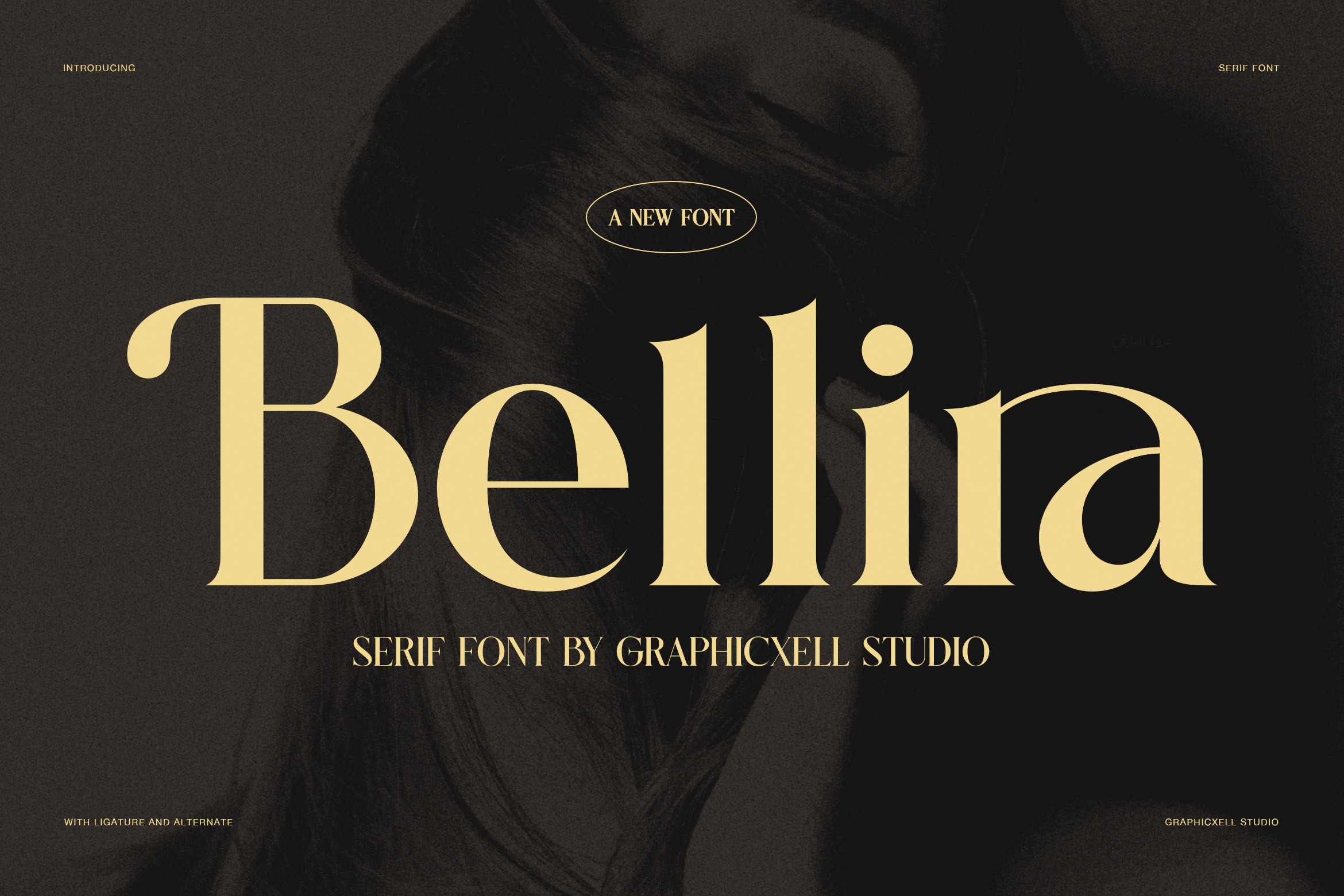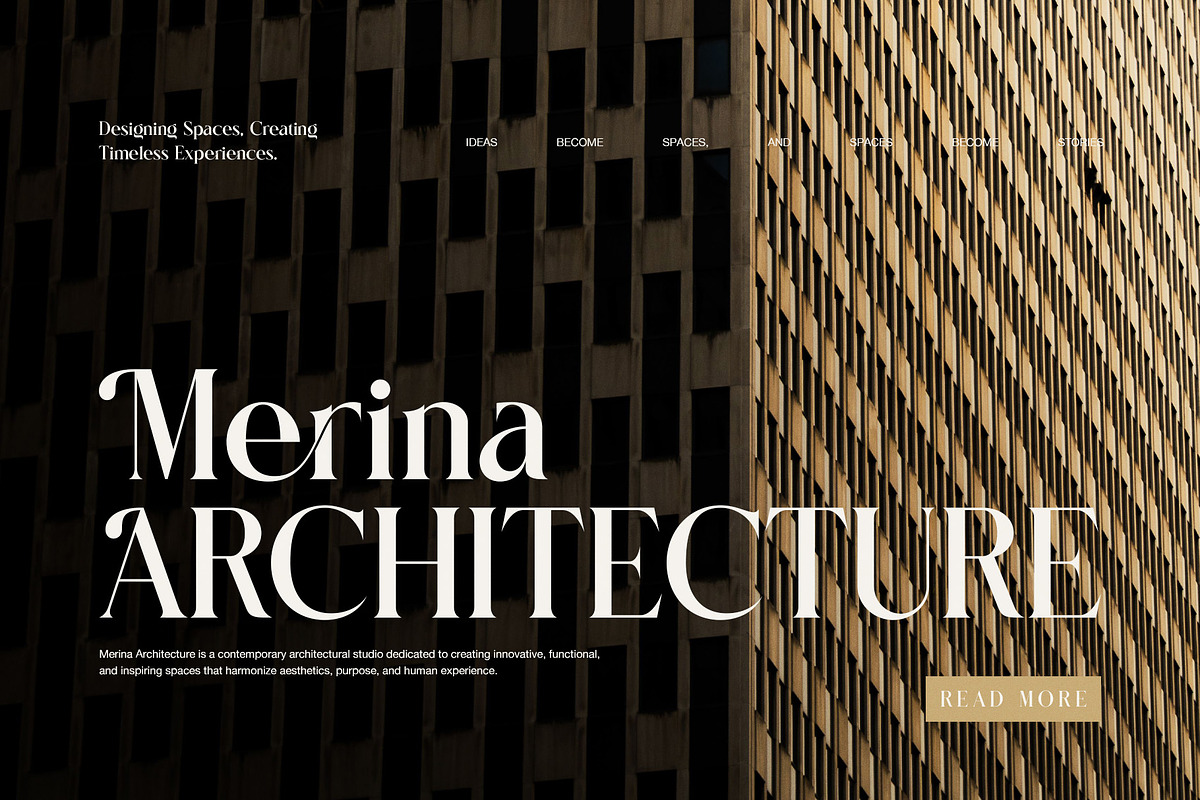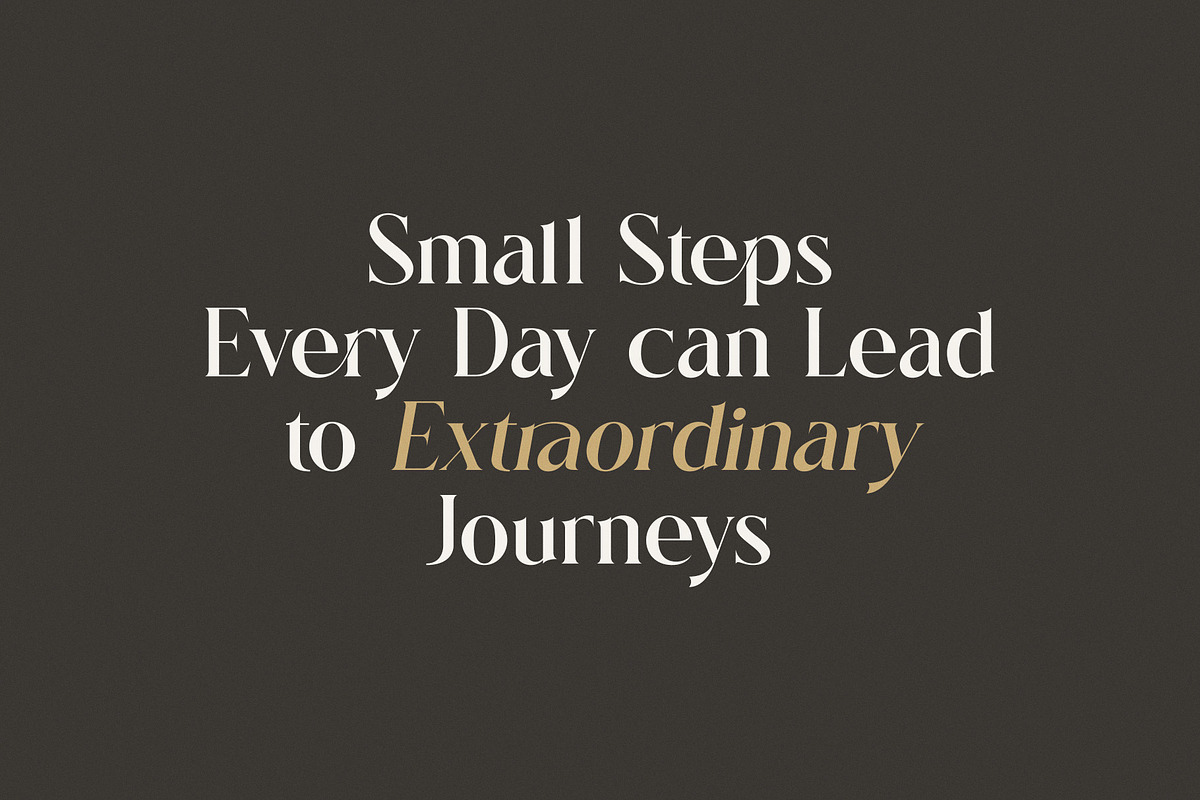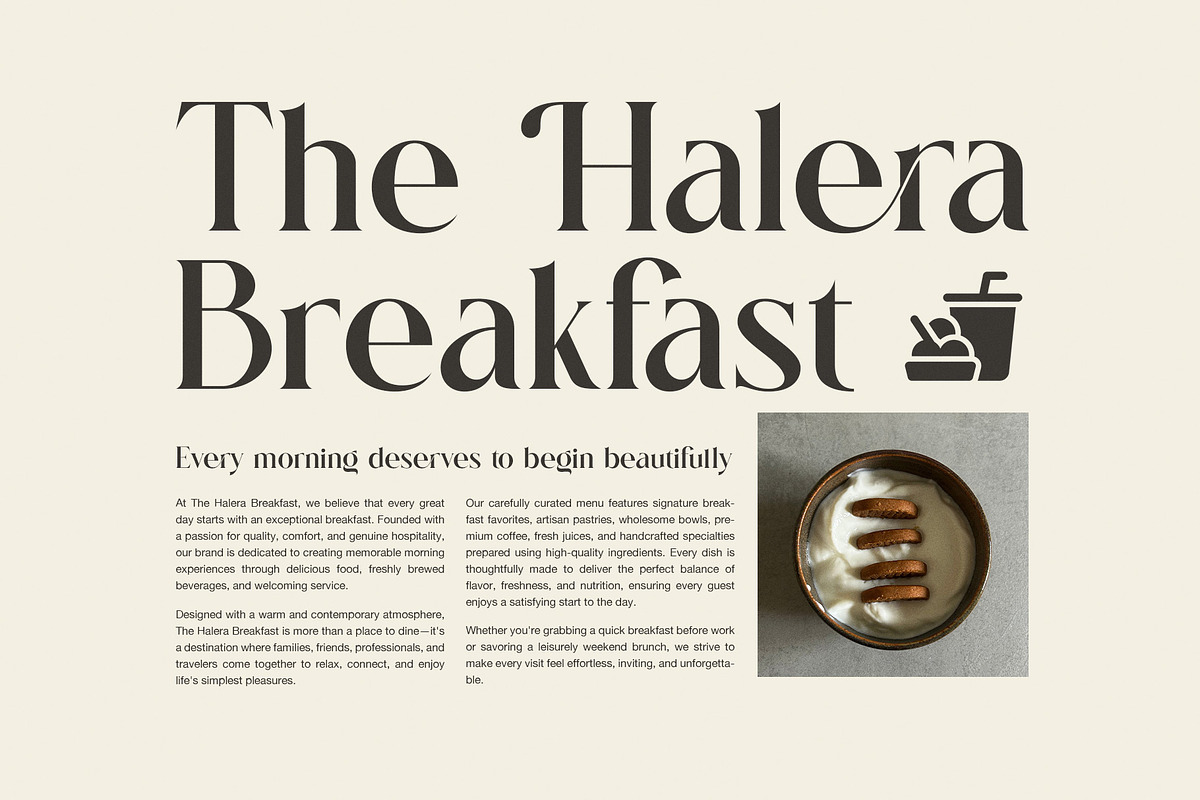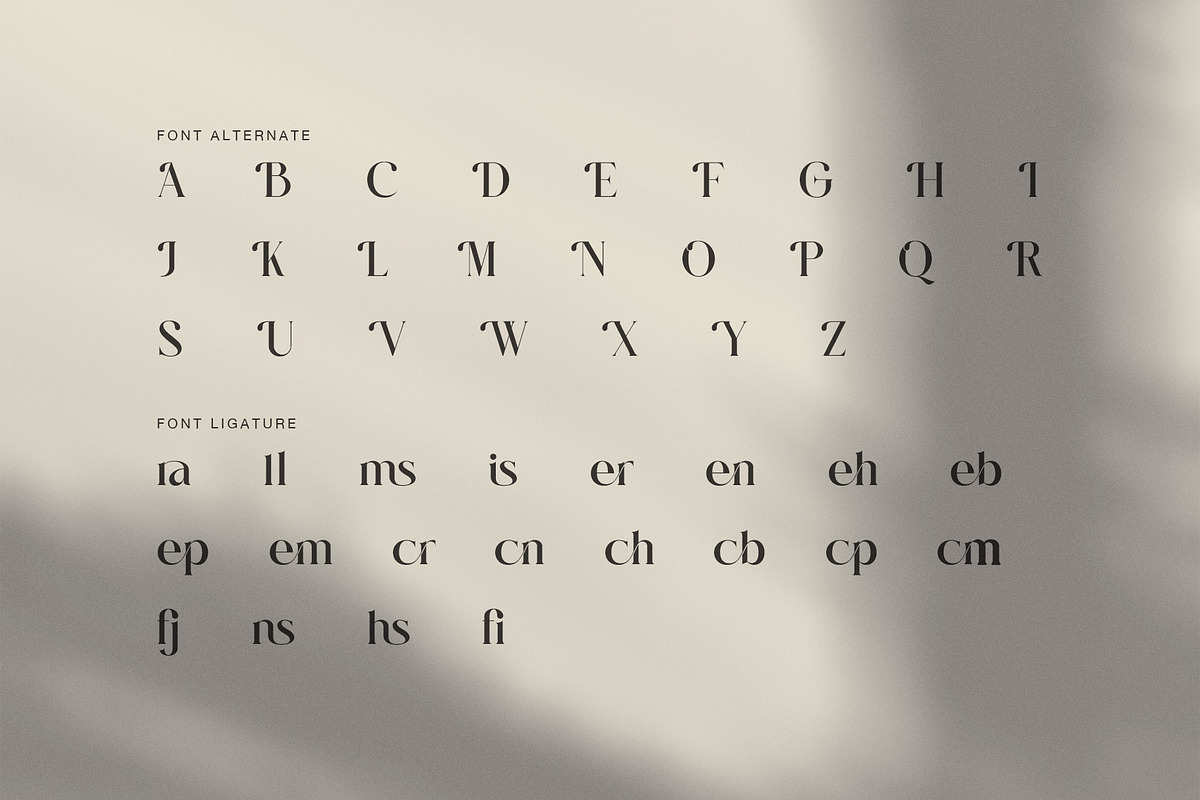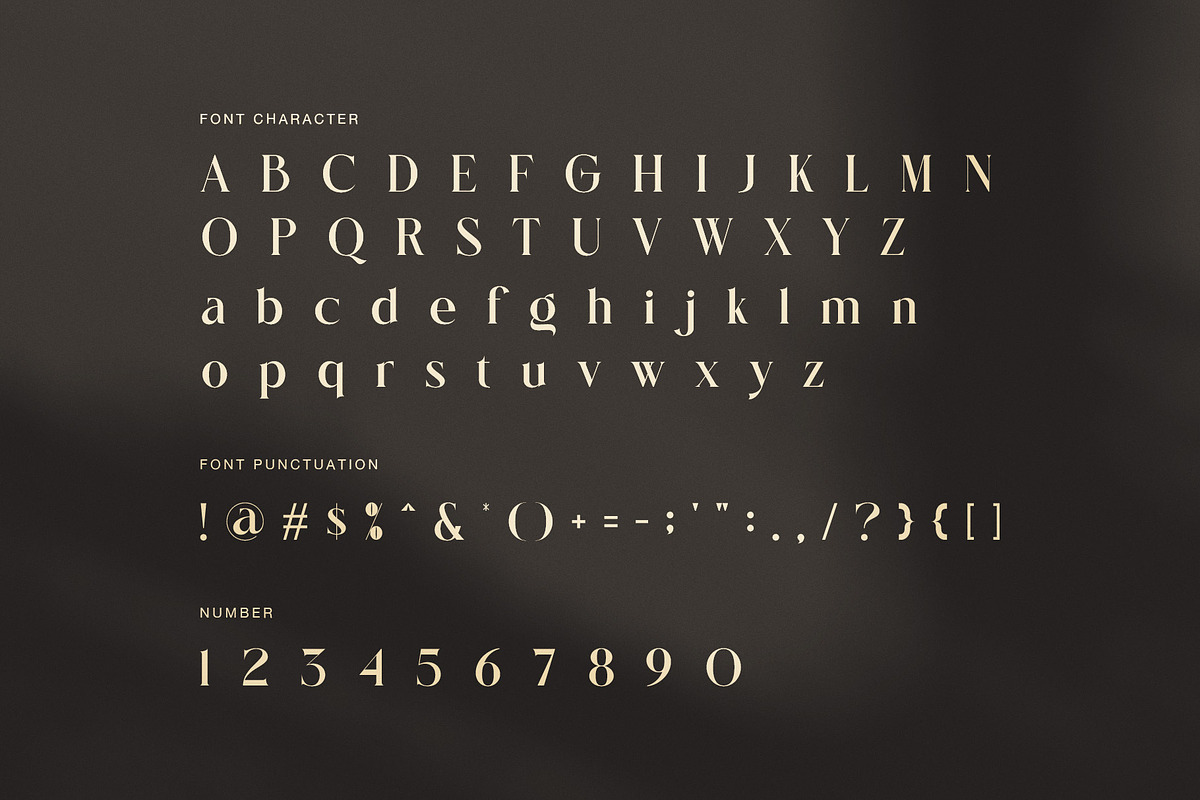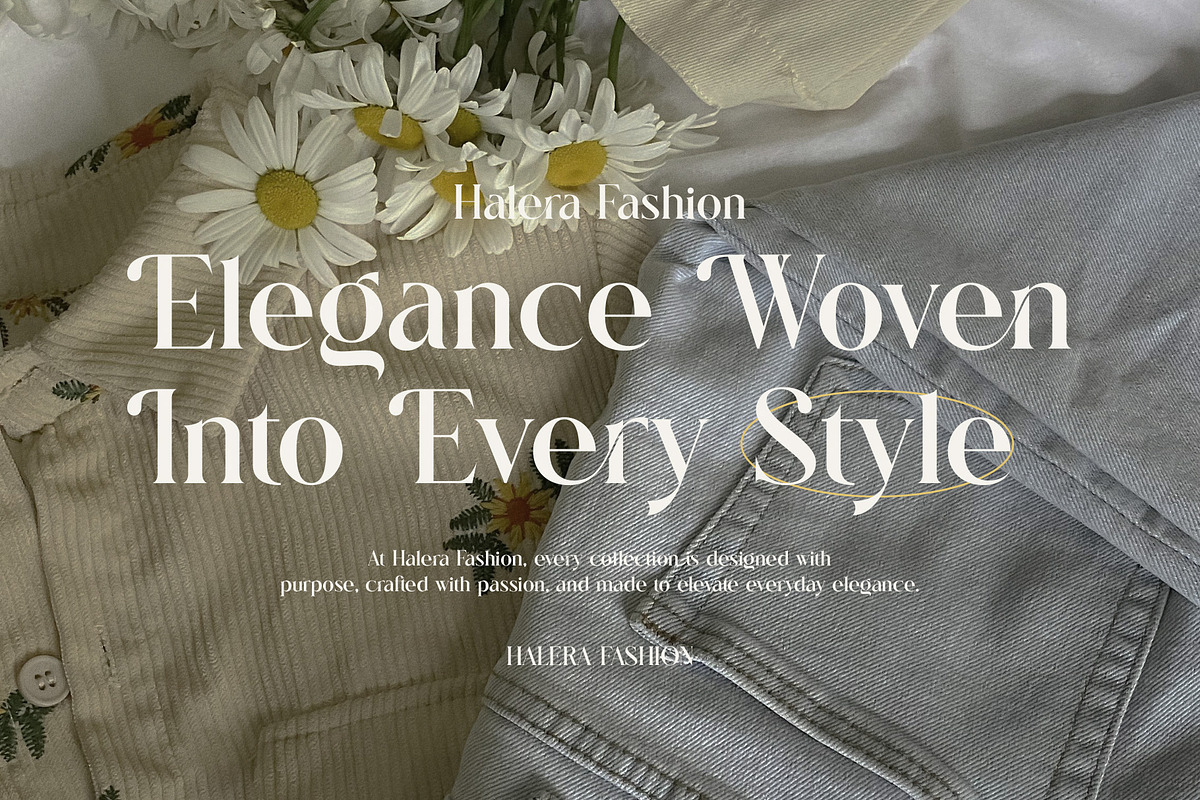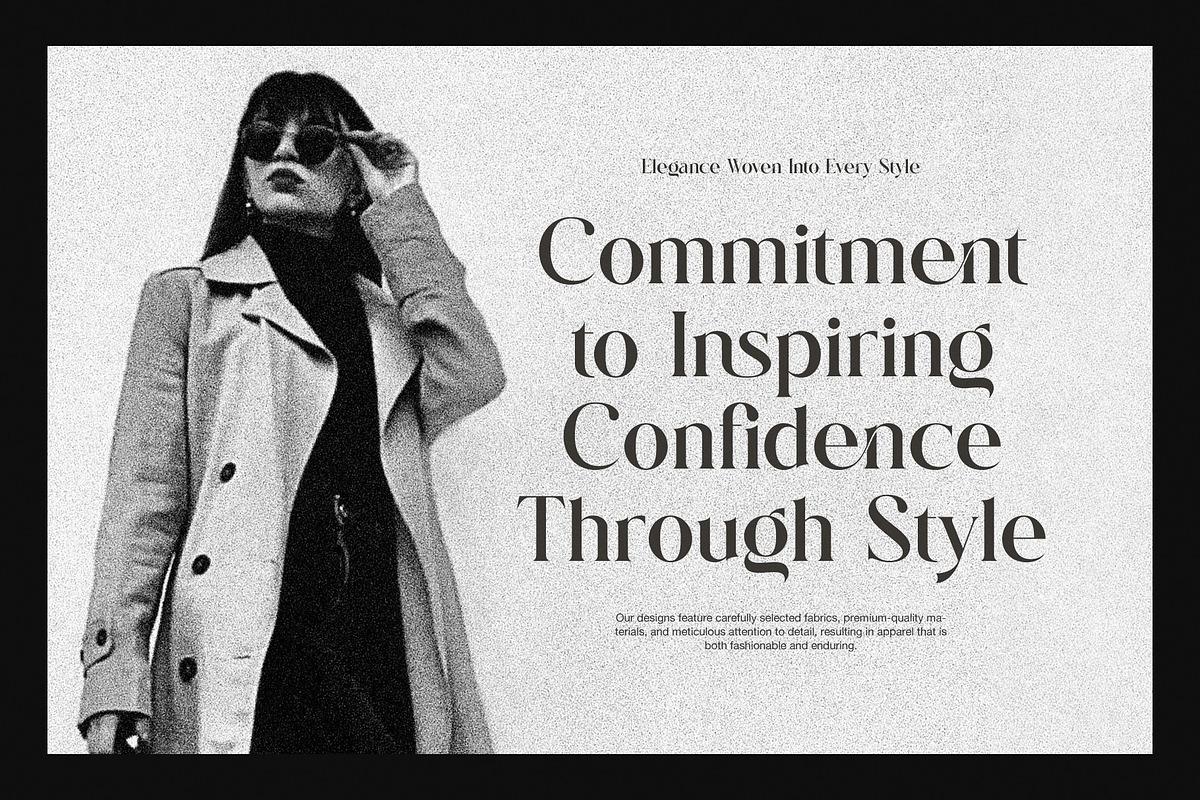
Bellira Elegant Serif Font
Bellira is an elegant serif font made for brands, layouts, and designs that need a refined and stylish look. With high contrast strokes, smooth curves, sharp serifs, and fine details, this typeface gives a polished sense of fashion and class. It feels modern, yet timeless. Therefore, Bellira works well when you want a strong headline with a soft and graceful feel.
The letter shapes are made for display use, so they look best at larger sizes. Moreover, the stroke mix gives each word a rich visual rhythm. The uppercase letters add polish, while the lowercase set keeps the style warm and easy to use. In addition, Bellira includes alternate characters and ligatures that help you create fresh letter combinations. As a result, designers can add more style without losing the clean shape of the typeface.
Bellira is a great choice for fashion brands, beauty products, editorial designs, wedding cards, logos, packaging, magazines, posters, and social media graphics. Likewise, it fits boutique branding, luxury labels, creative studios, product campaigns, and elegant website headers. Whether you are making a logo or a large title, the font gives your work a premium look. Furthermore, its balanced forms make it easy to pair with a simple sans serif font for a clean layout.
Key features:
Elegant high contrast serif style
Stylish uppercase and lowercase letters
Decorative alternate characters
Useful ligatures for unique word shapes
Numbers and common punctuation
Strong display presence for headlines
Great for fashion and luxury branding
Because Bellira has a clean base design, it can move from classic layouts to modern creative work with ease. However, its strongest look appears in short words, brand names, headlines, and large statements. For example, it can give a fashion logo a refined voice or make a magazine title feel more premium. Also, it adds a graceful touch to invitations and beauty packaging.
Overall, Bellira is a versatile elegant serif font for designers who want style, contrast, and a high-end feel. Finally, its alternate and ligature options give you extra freedom to build typography that feels personal, polished, and memorable.